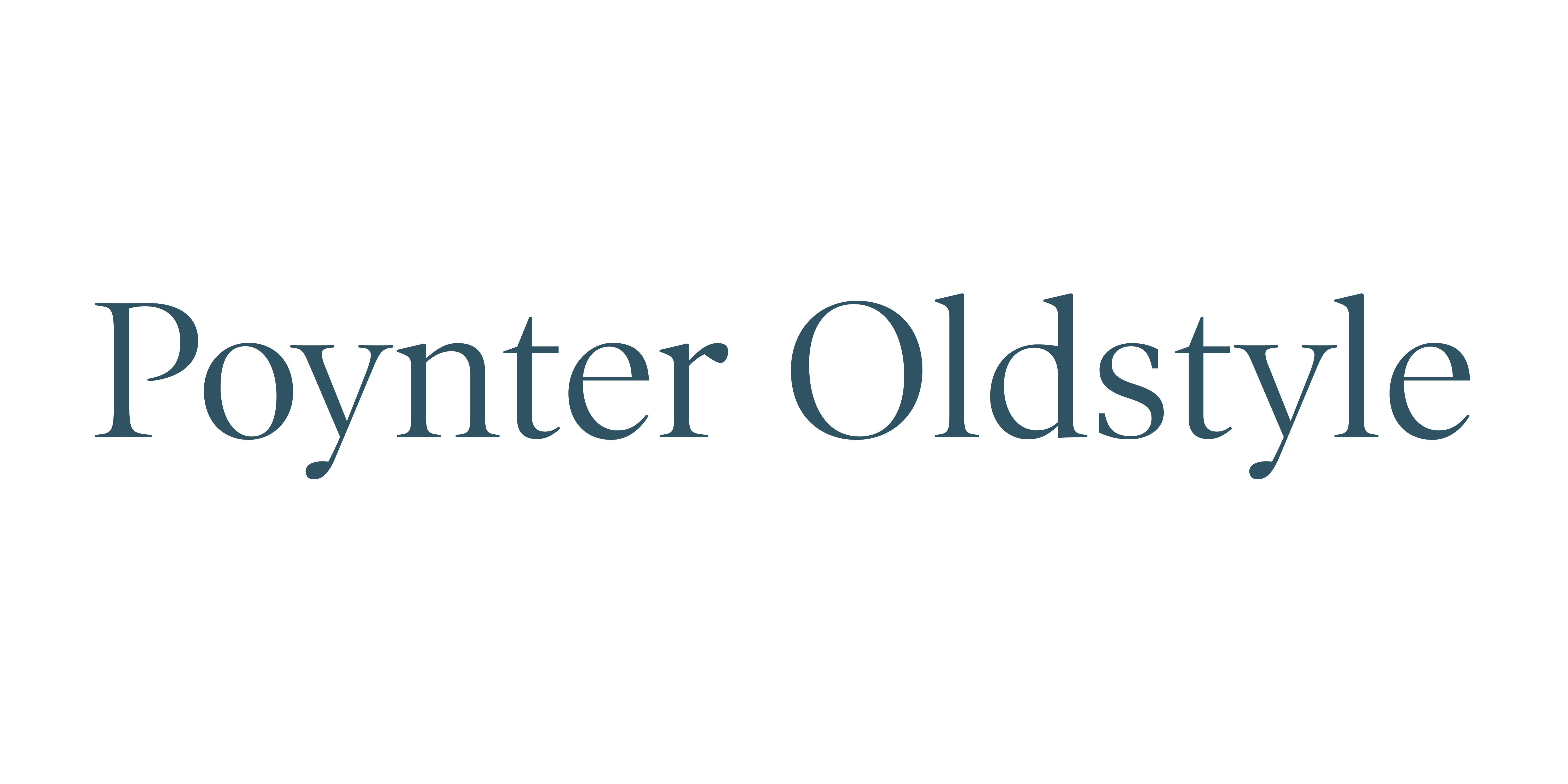
Poynter Old Style Font Free Download is a classic serif typeface designed with elegance and readability in mind. Perfect for editorial design, book printing, branding, and websites, this font features timeless letterforms that evoke tradition while maintaining a contemporary balance. Poynter Old Style’s clean serifs and subtle curves make it an ideal choice for professional and elegant designs.
With Poynter Old Style Font Free Download, you’ll receive a complete set of uppercase letters, lowercase, numbers, and essential punctuation, providing flexibility for both print and digital uses. Whether you're crafting a sophisticated magazine layout, designing a logo, or developing marketing materials, this font ensures clarity and a polished aesthetic.
Add timeless elegance to your design projects with Poynter Old Style Font Free Download. Its refined, classic design makes it the perfect choice for projects that need sophistication, readability, and a traditional touch.